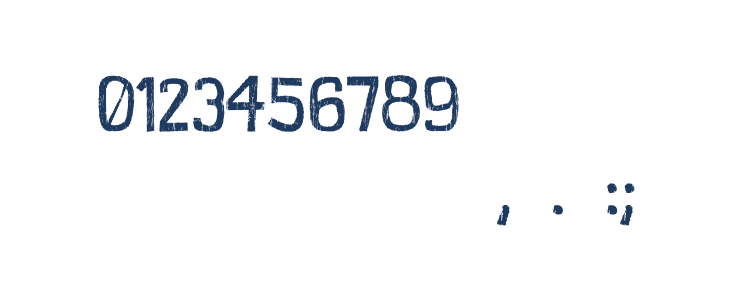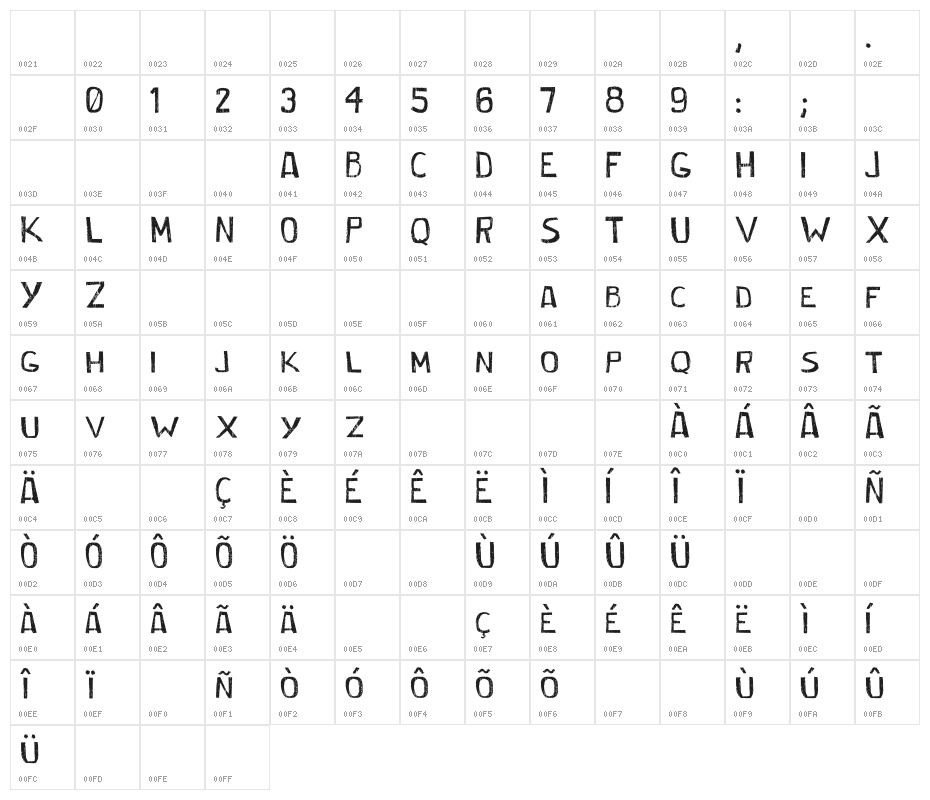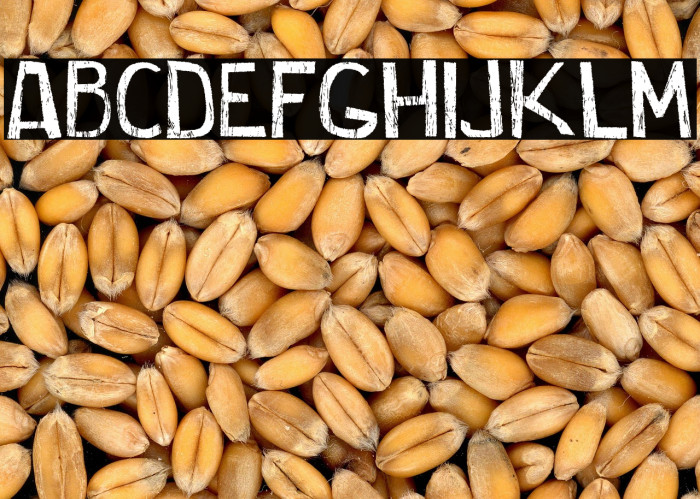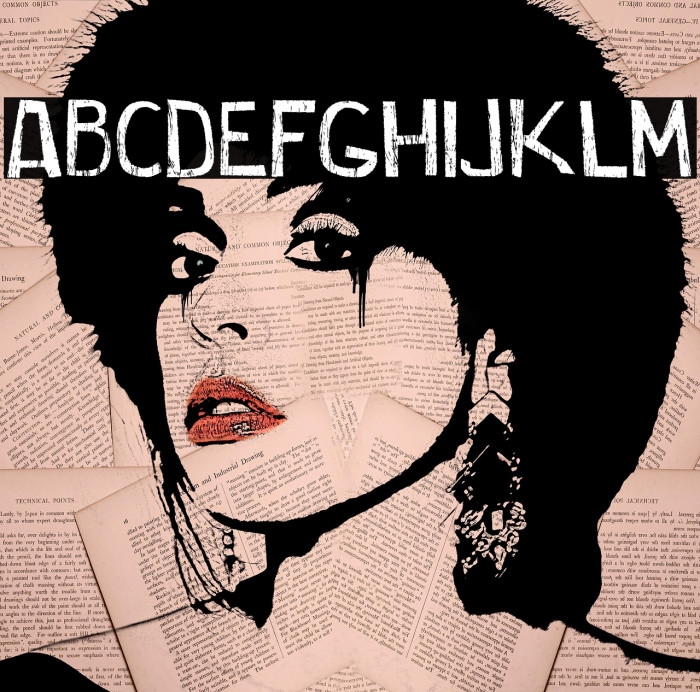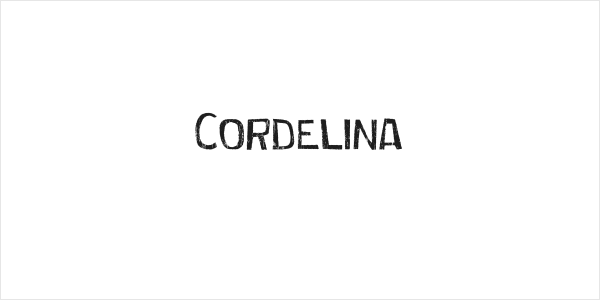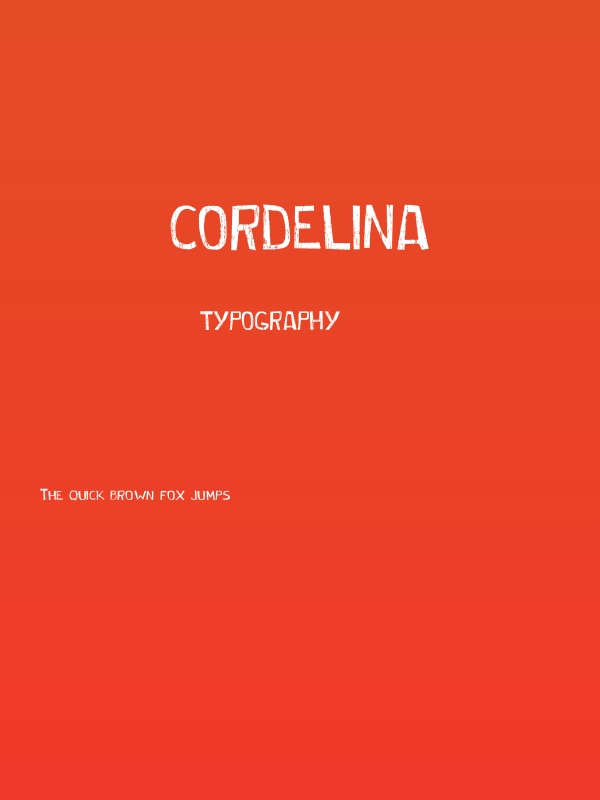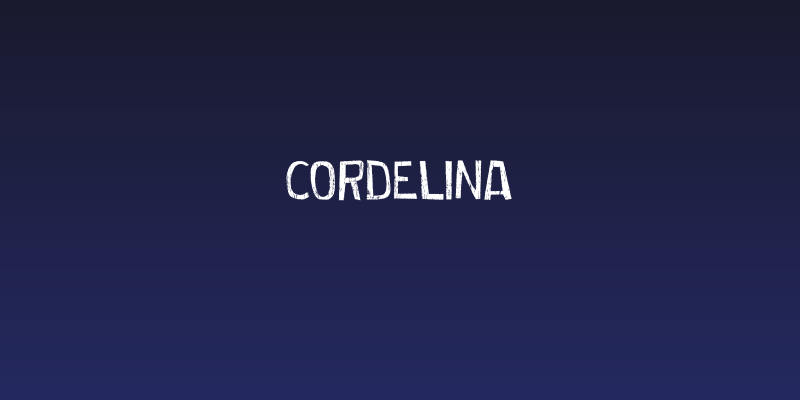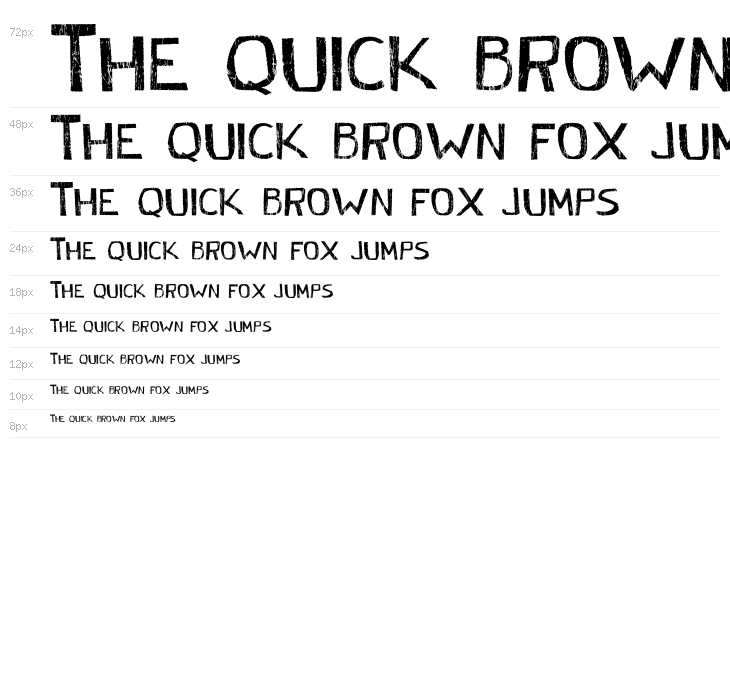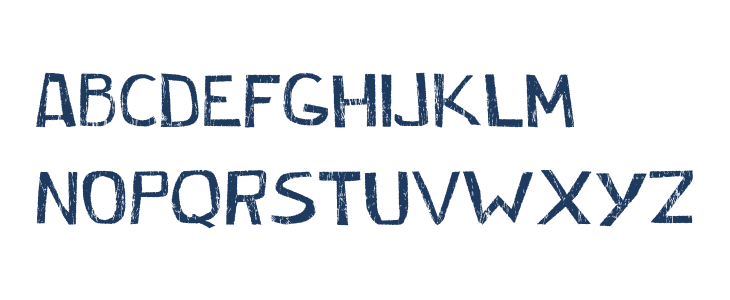
Cordelina Font
Cordelina Description
This font features a bold, distressed style with a textured appearance that mimics the look of worn or weathered surfaces. The characters are uppercase and numerals, each with a unique, rough edge that adds a sense of authenticity and vintage charm. The strokes are uneven, giving the font a hand-crafted feel, while maintaining a consistent weight throughout. The overall design is reminiscent of traditional letterpress or woodblock printing, making it ideal for projects that require a rustic or artisanal touch. The font's boldness ensures it stands out, making it suitable for headlines or display purposes.